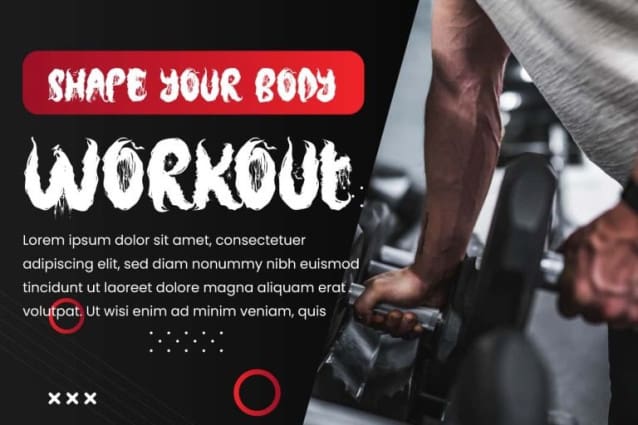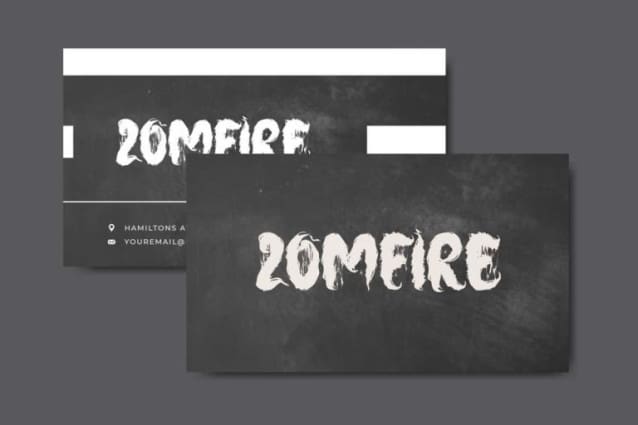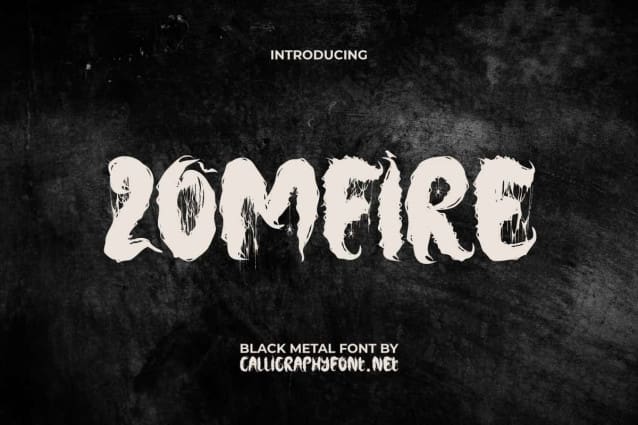
Zomfire Black Metal Font
Zomfire Black Metal Font is a black metal font with hideous liquid font and mesh effects. It is inspired by the incredible look of black metal writing. Perfect for advertisements, billboards, blogs, branding logo, brochure, business cards, cover albums, custom canvas bags, flyer, headline, label, mug stamp, posters, screen printed t-shirt, stationery, stickers, title, website, and more.